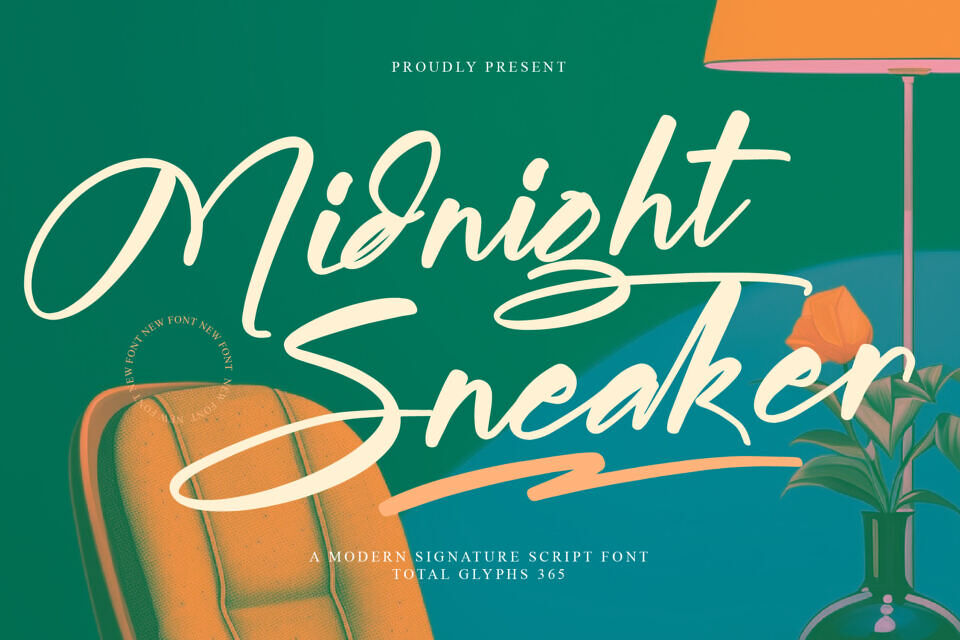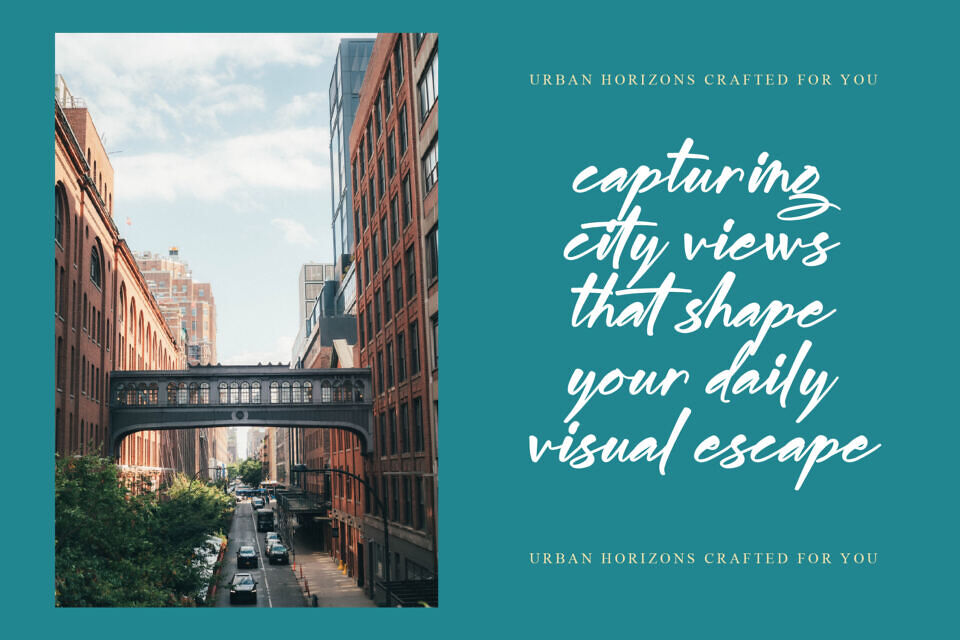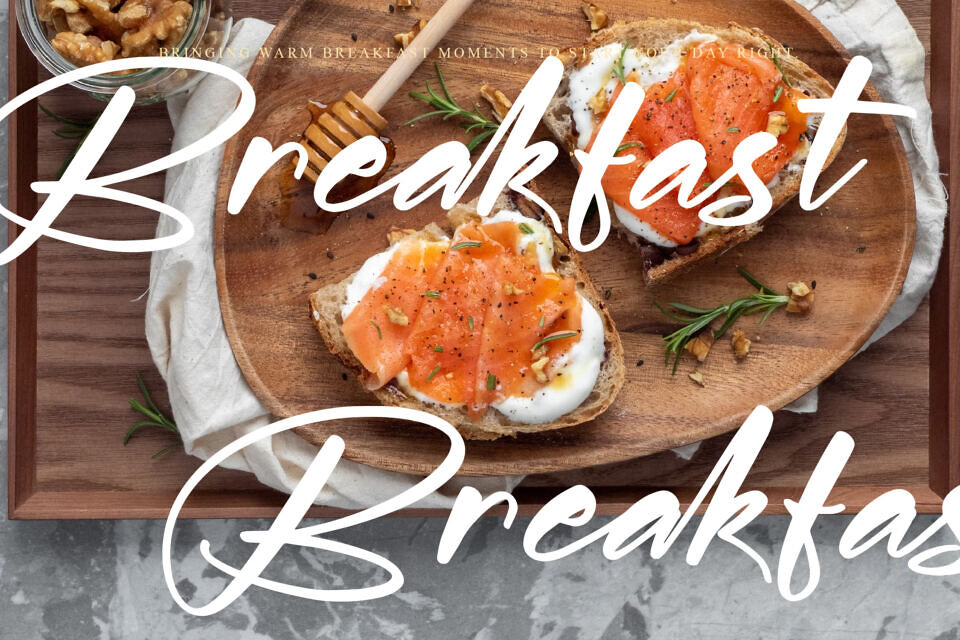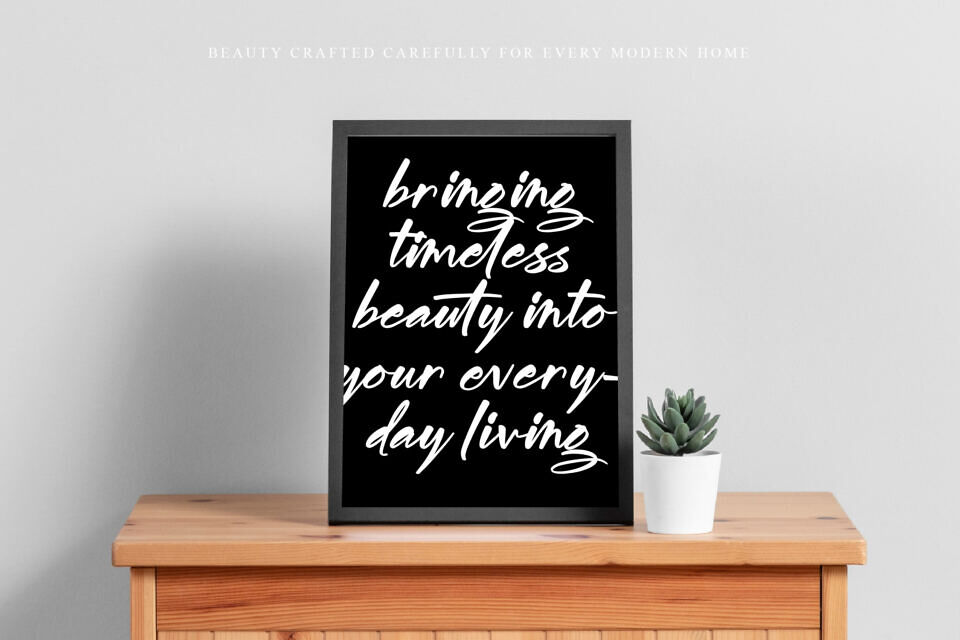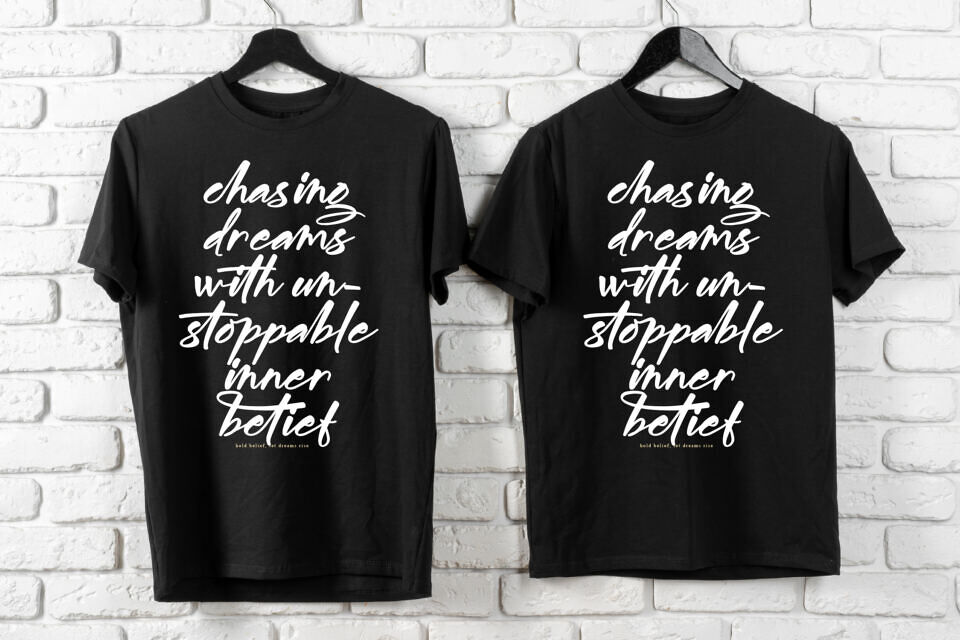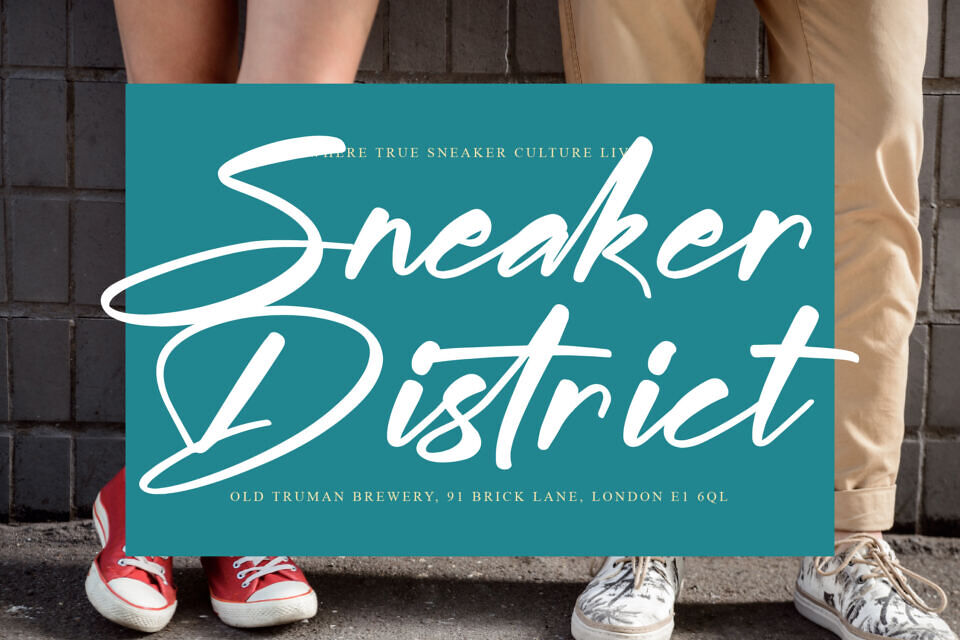
Midnight Sneaker is a modern signature script font that embodies elegance, creativity, and effortless sophistication. Crafted with smooth flowing strokes and authentic handwritten movement, this typeface delivers a refined signature aesthetic that feels both personal and professional.
Designed for creative professionals, brands, and entrepreneurs, Midnight Sneaker offers a harmonious balance between minimalist luxury and expressive typography. Its clean curves and natural rhythm make every word appear graceful, stylish, and memorable, creating a strong visual identity across a wide range of design applications.